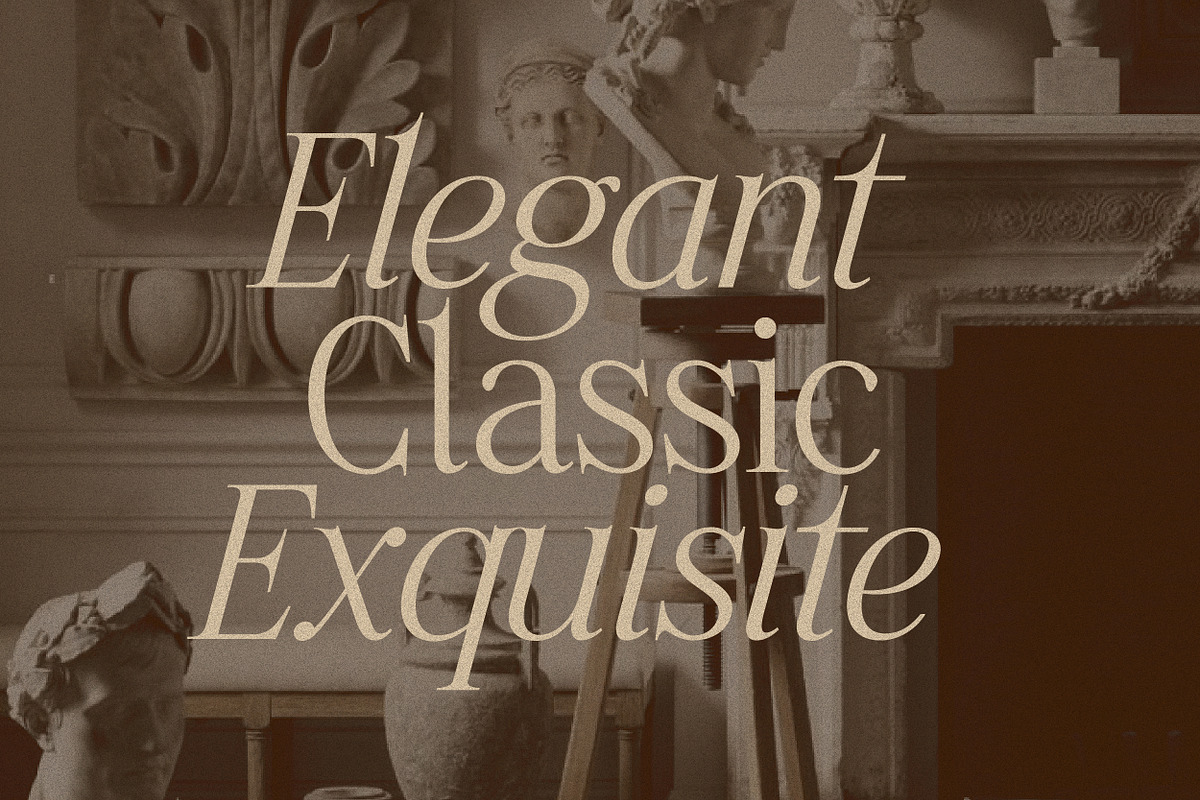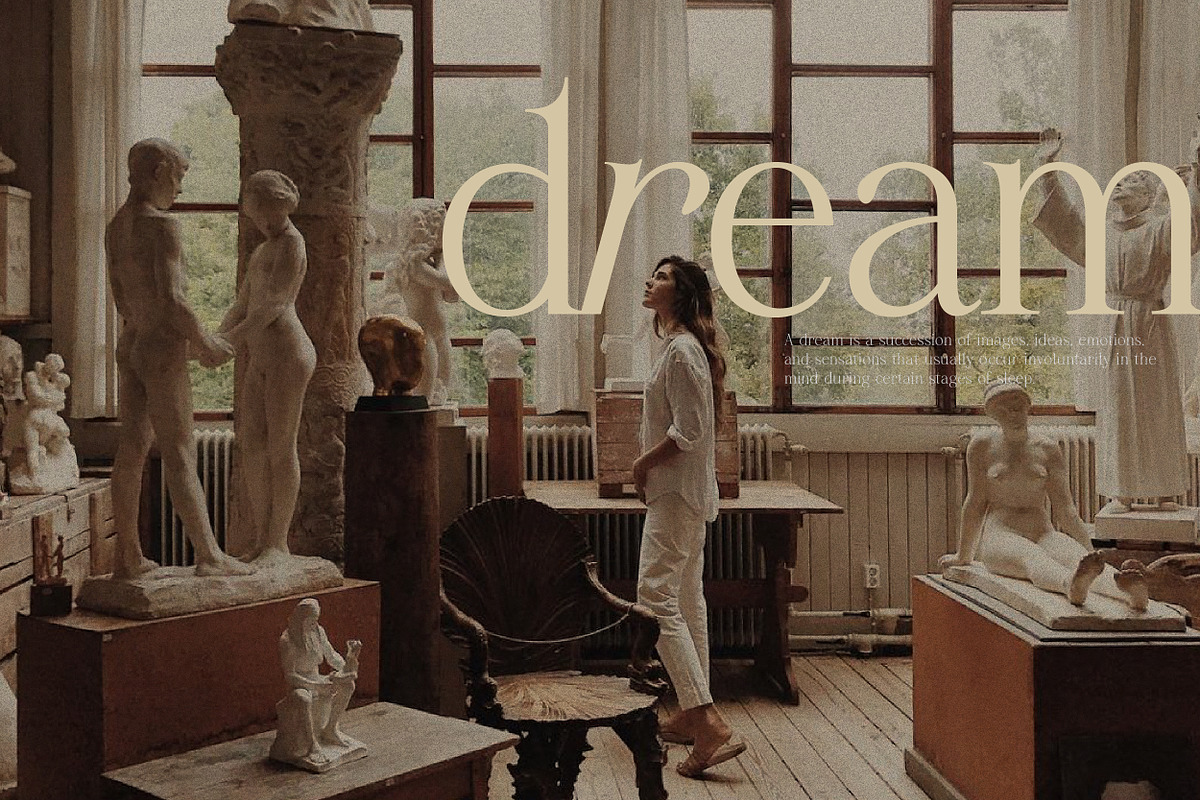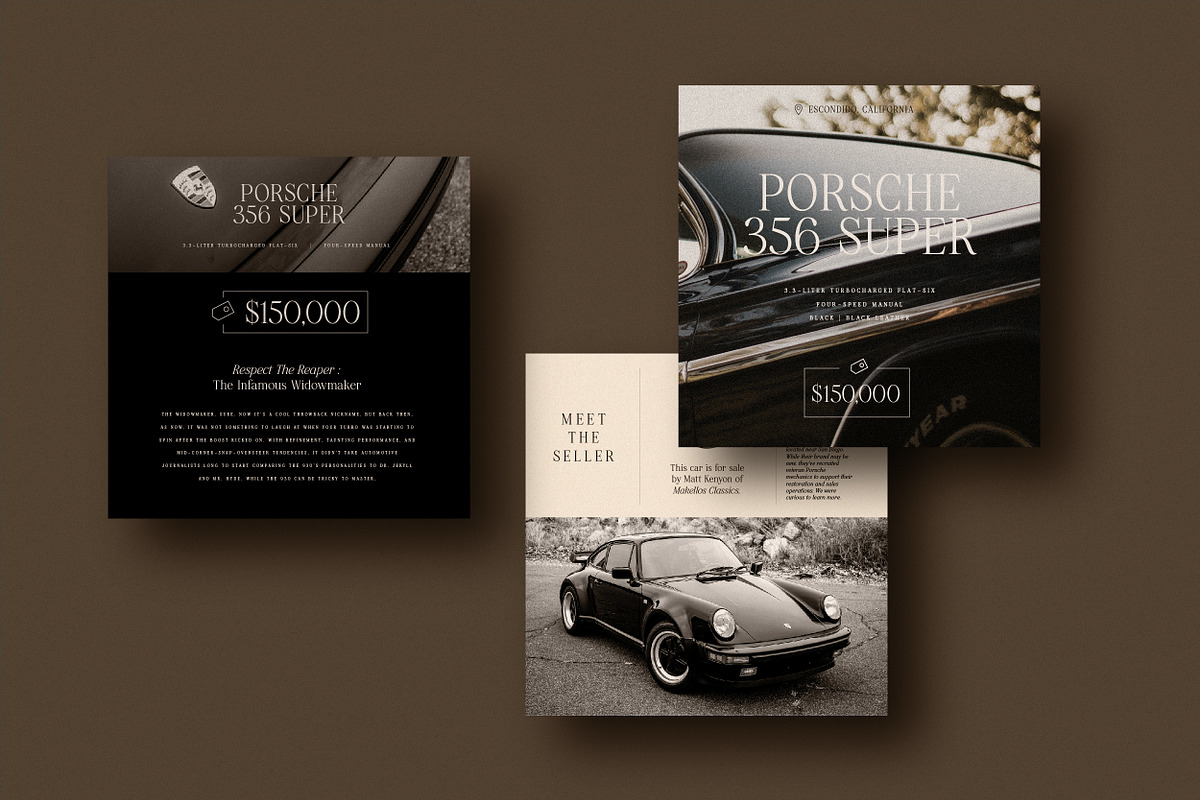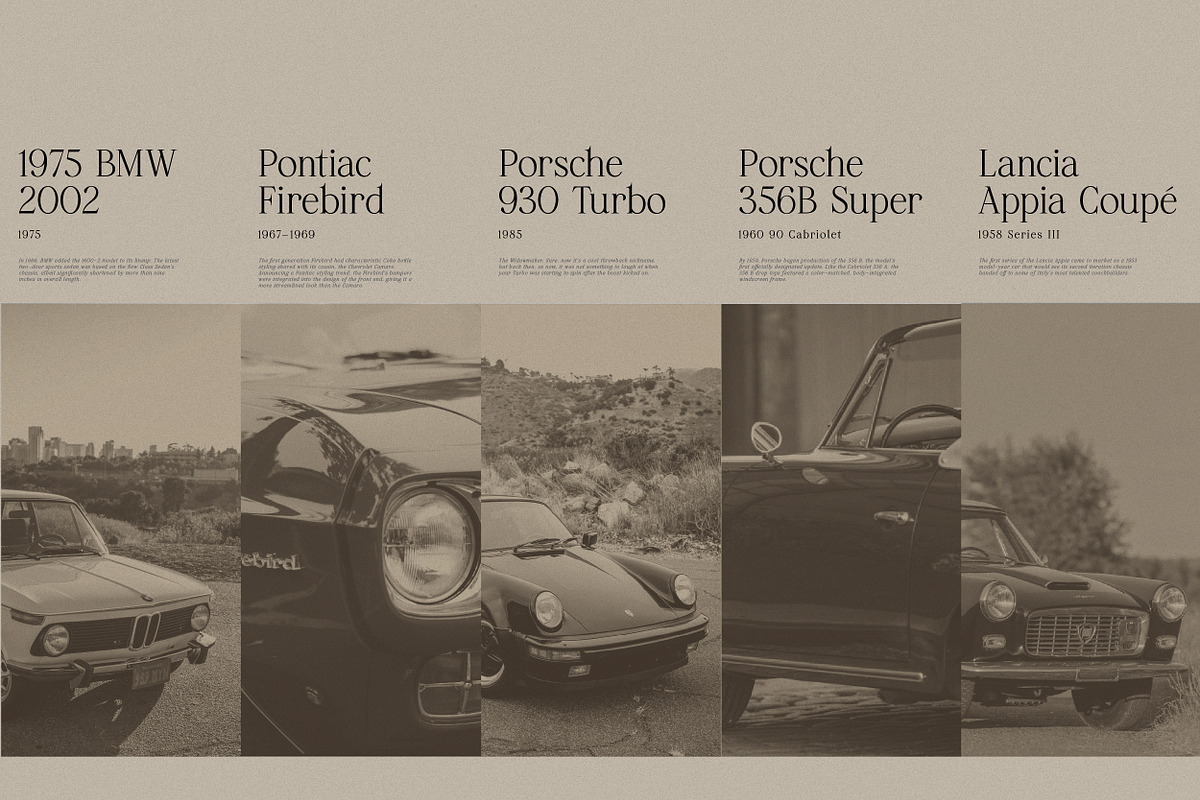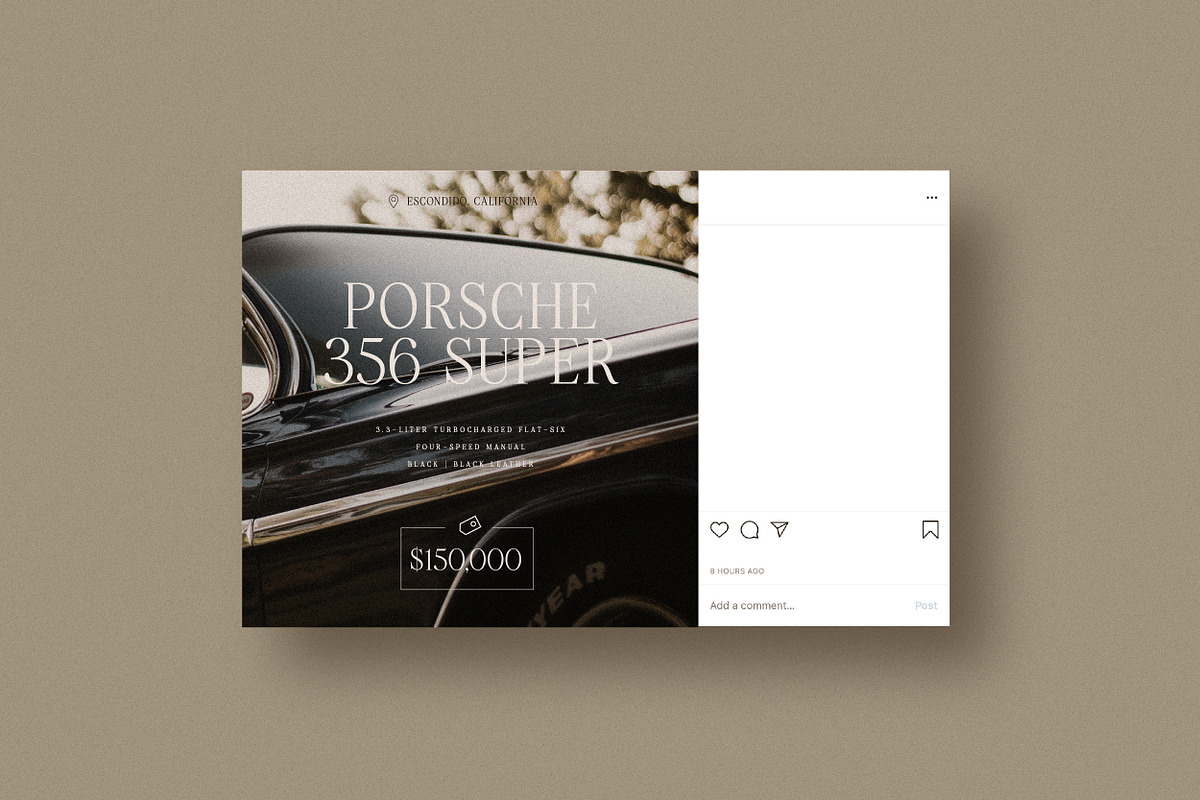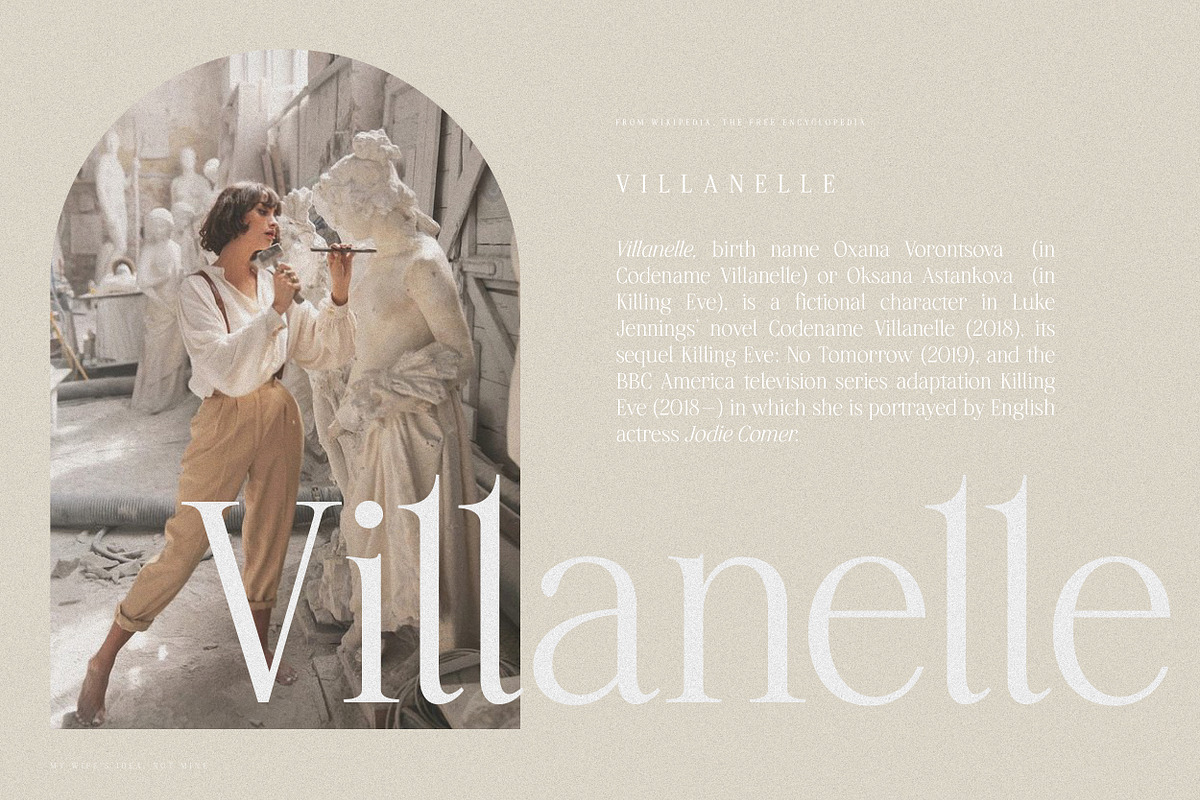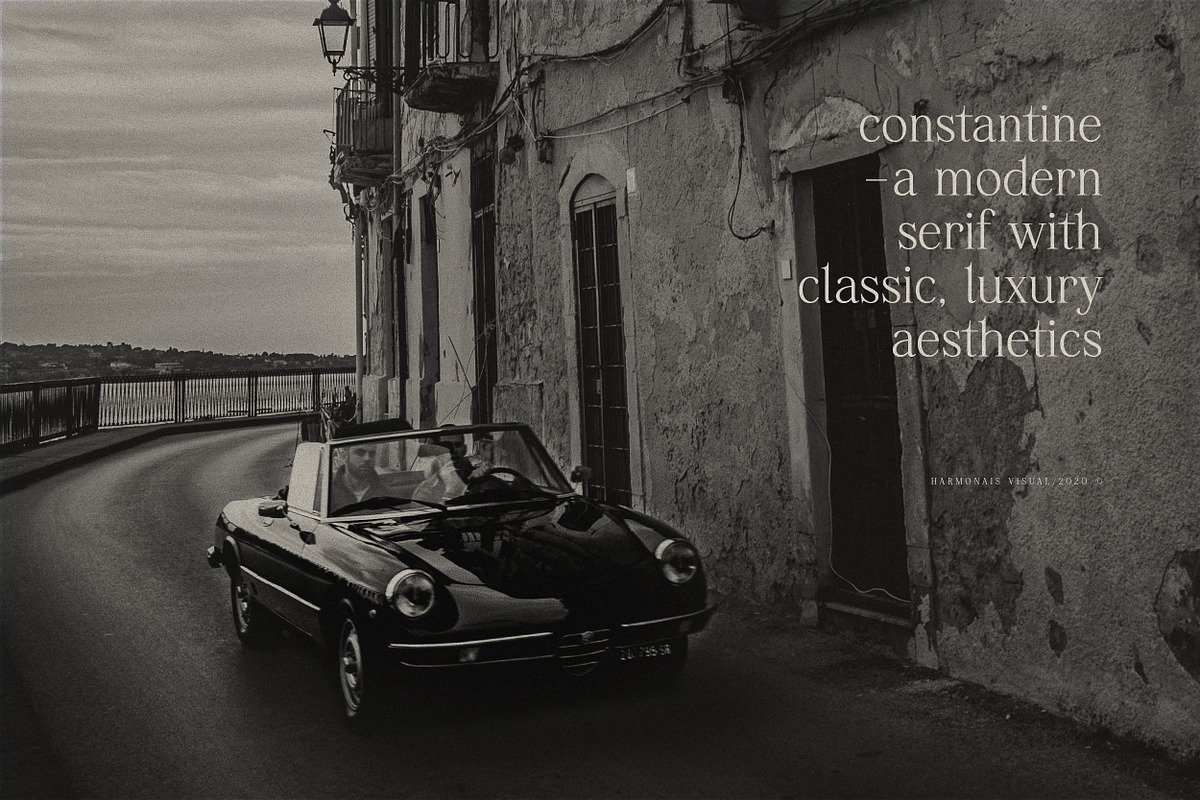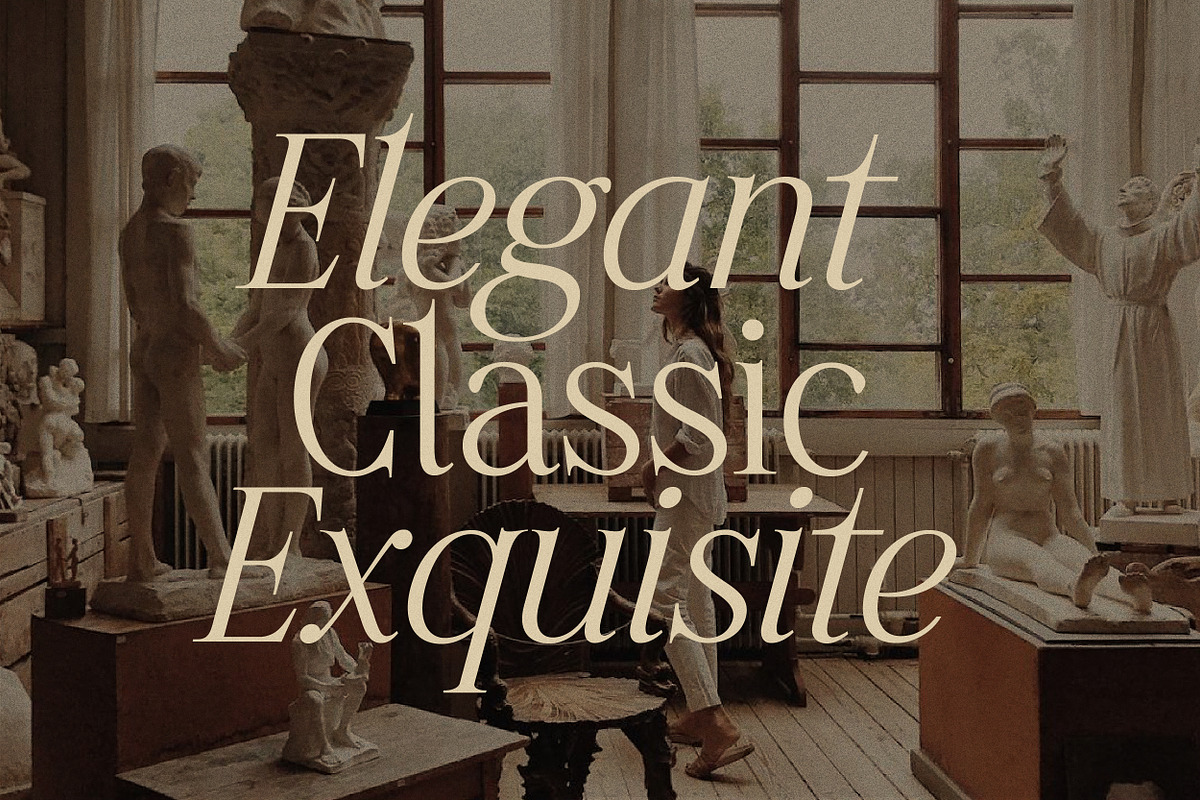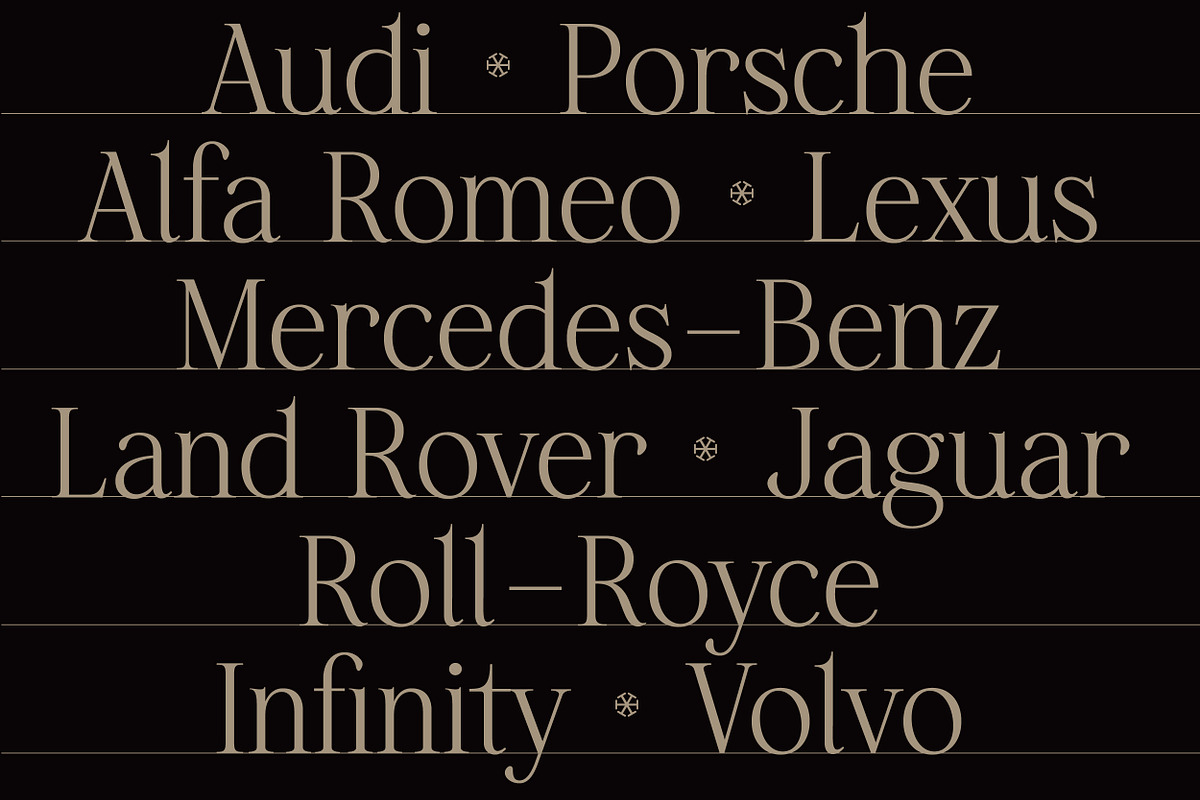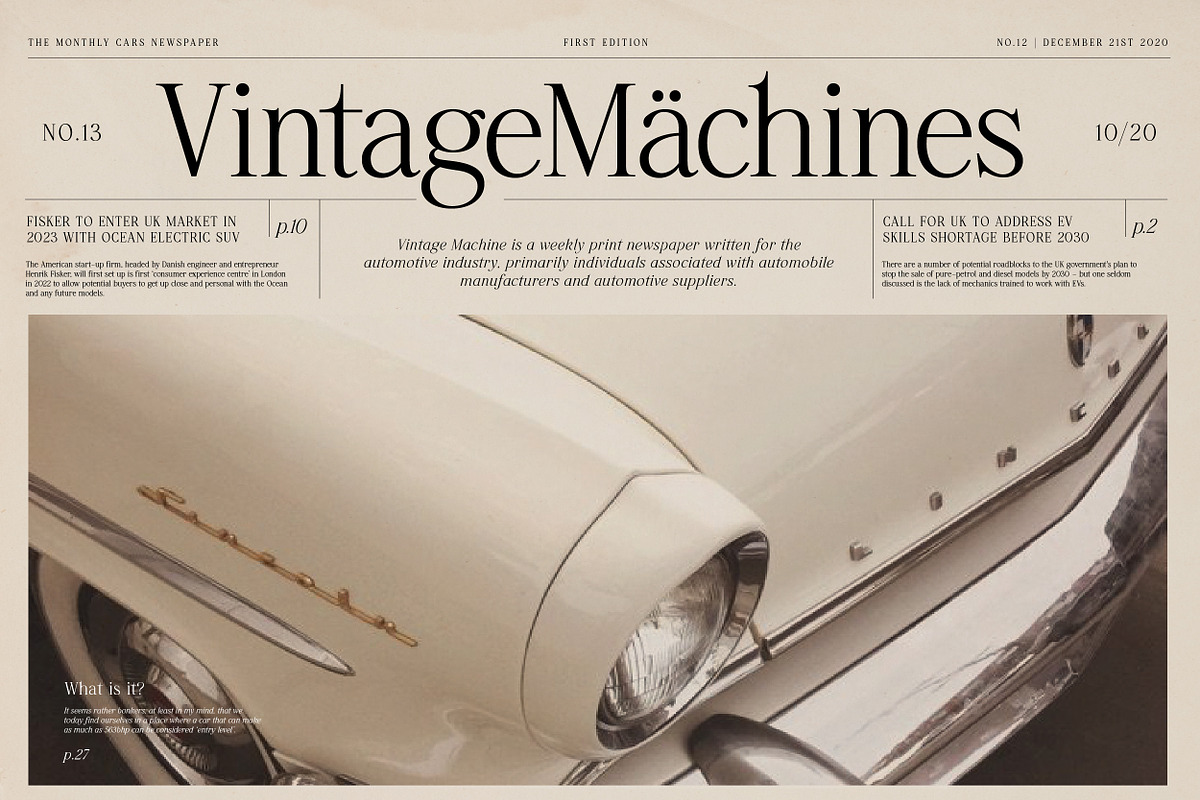
Constantine - Modern Serif
Constantine - an exquisite display modern serif, inspired by classic roman arts and vintage cars aesthetics. Specially designed for luxury, clean, high-end projects, perfectly suitable for creating elegant, classy design such as magazine, social media, and more. The font features standard ligatures.